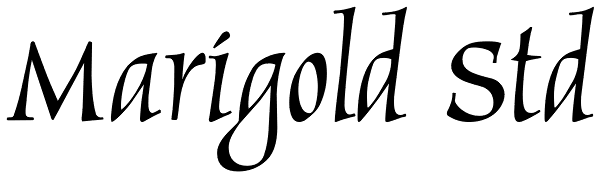
Marigold
Originally designed by calligrapher Arthur Baker, Marigold was released by Agfa Compugraphic in 1989. Marigold is narrow in width like the chancery hand, and its shapes are true to the prescribed Renaissance proportions. The authentic handwritten...